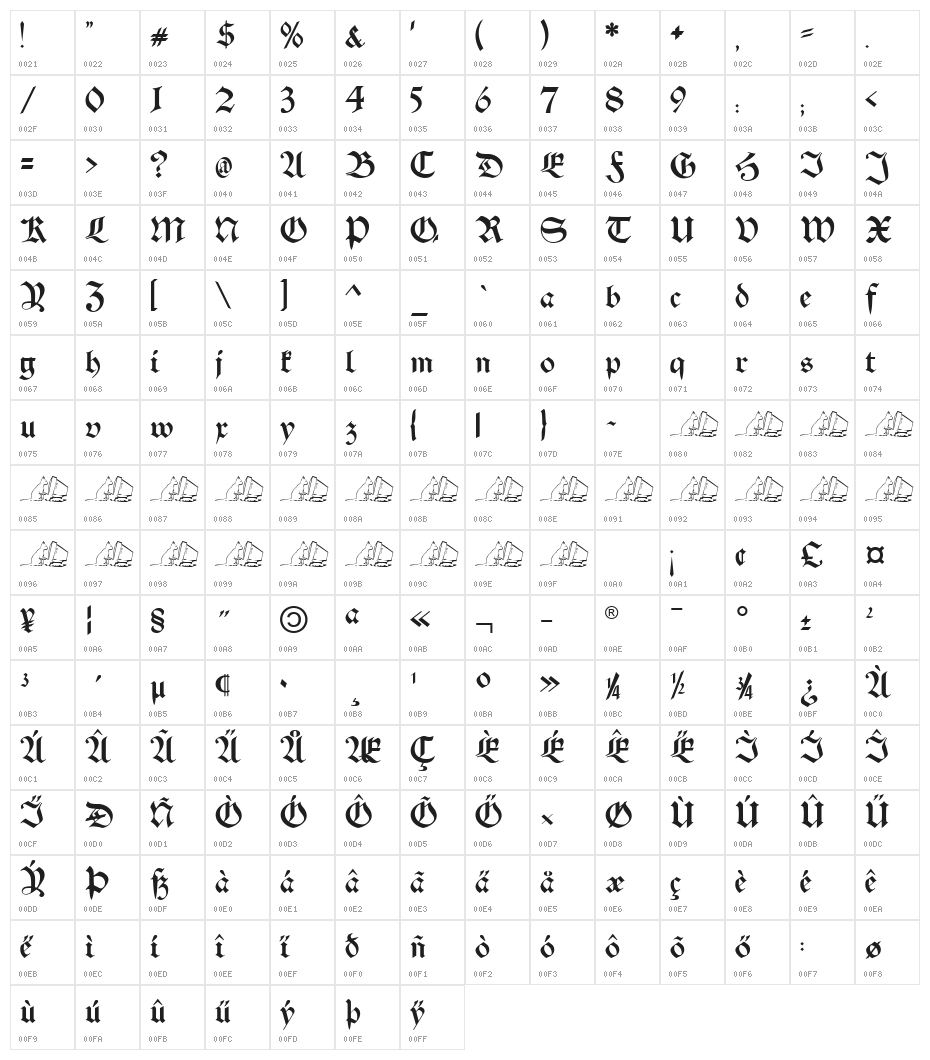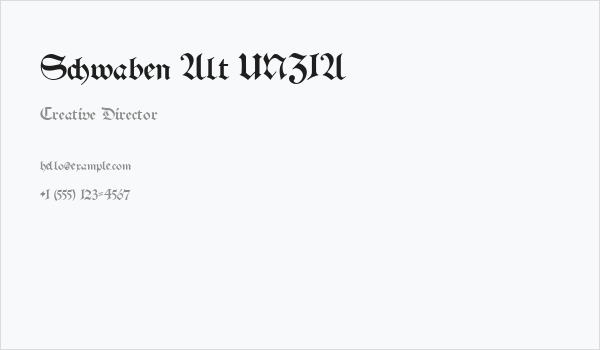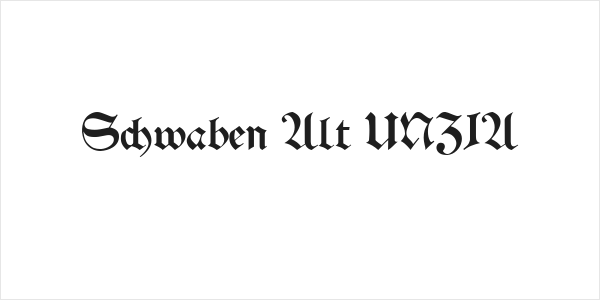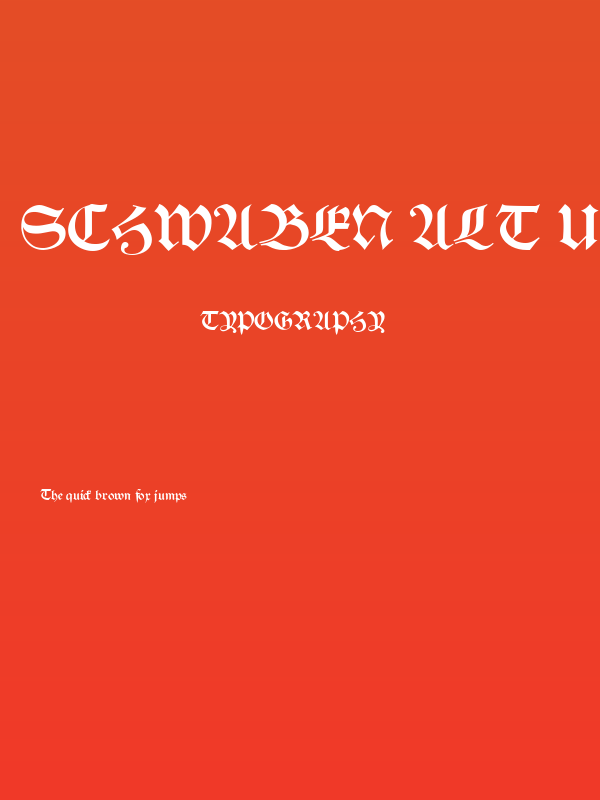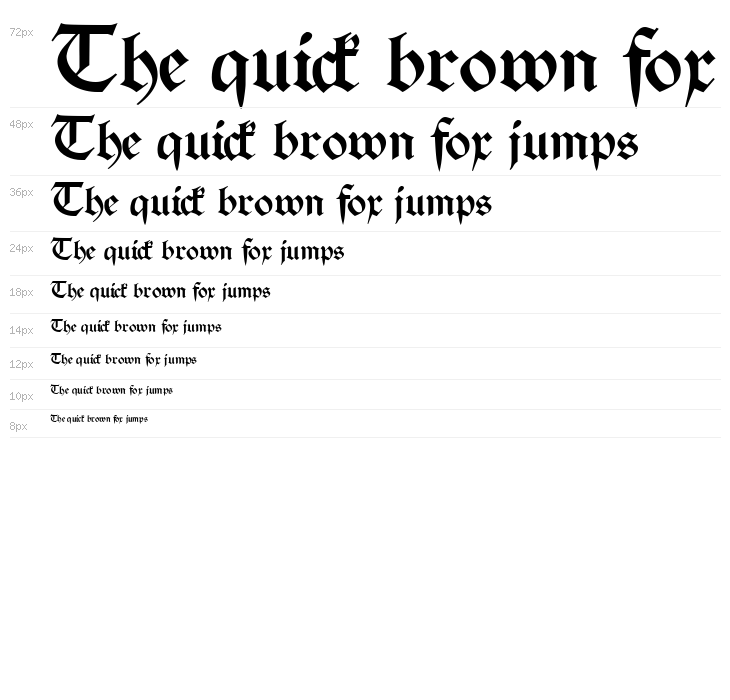
Schwaben Alt UNZ1A Font
Schwaben Alt UNZ1A Description
This font exhibits a traditional and ornate style, reminiscent of historical scripts with its intricate and decorative letterforms. The characters are bold and striking, featuring sharp angles and elaborate curves that give it a distinct and authoritative presence. The uppercase letters are particularly elaborate, with flourishes and embellishments that enhance their visual impact. The lowercase letters maintain a consistent style, with a slightly more subdued design that complements the uppercase set. The numerals and special characters follow the same intricate design, ensuring a cohesive look across all glyphs. This font is ideal for projects that require a touch of elegance and historical flair.
| Proposed Projects | Suitable for historical documents, certificates, invitations, and branding that requires a classic and elegant touch. |